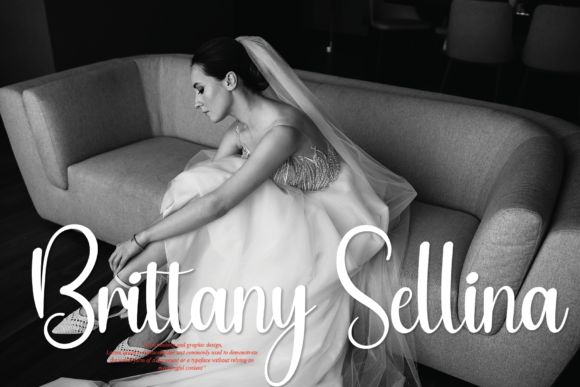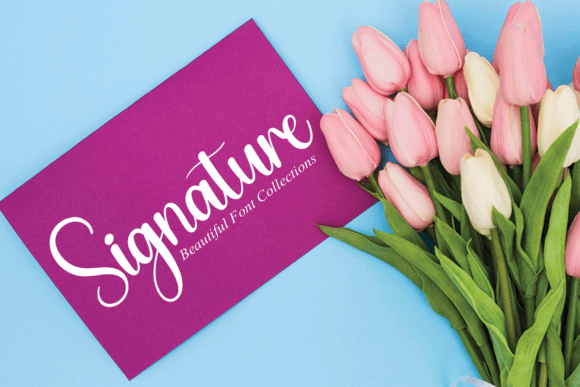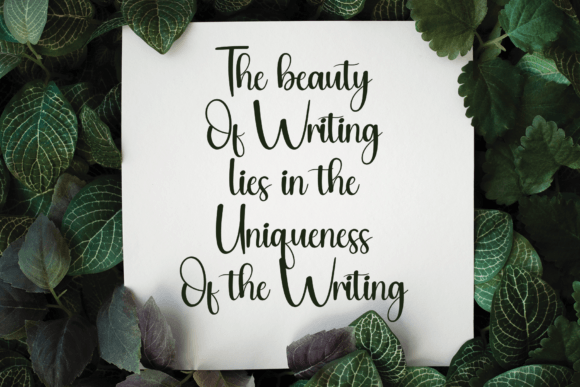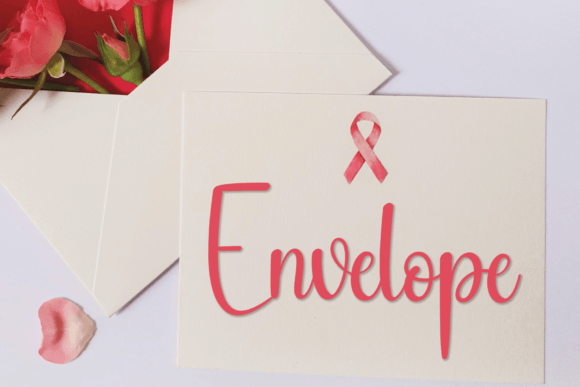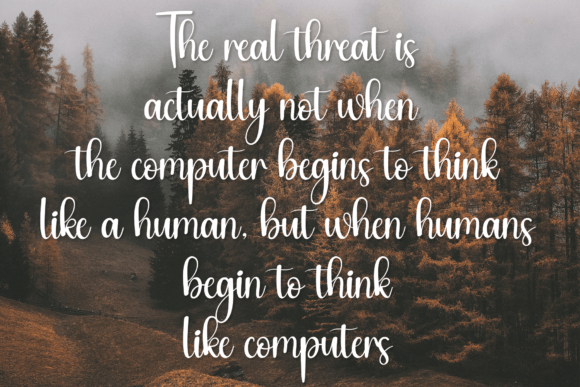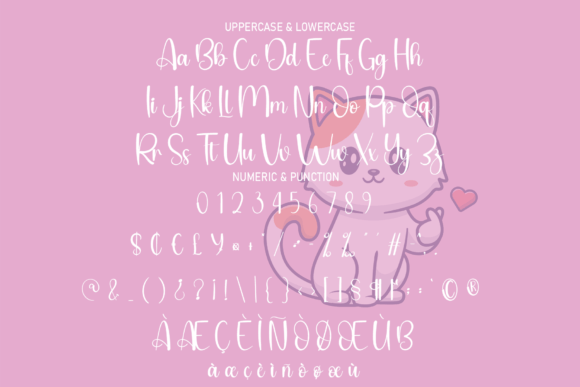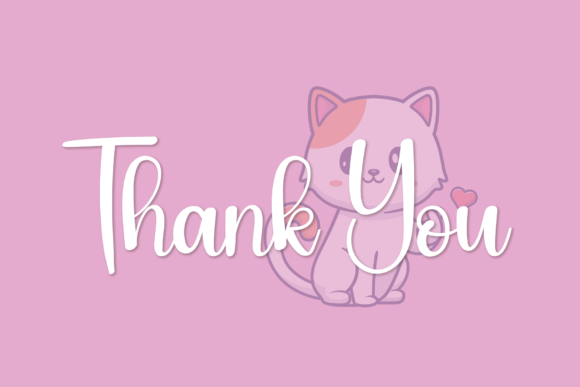
Pokemon Font
A Flowing and Elegant Handwritten Script
Pokemon is a beautiful handwritten font designed to bring elegance and personality to any design project. With graceful curves and smooth lines, it creates a timeless look that feels refined and approachable. Whether you’re crafting logos, wedding invitations, or social media graphics, Pokemon ensures your work stands out with style.
Its balanced shapes and clean flow make it a perfect choice for both casual and formal designs.
Pokemon is a versatile font that adapts to a wide range of uses. It’s perfect for wedding invitations, save-the-dates, and thank you cards. The elegant strokes give any event a warm, romantic feel that your guests will remember.
For branding, Pokemon works beautifully on logos, business cards, and packaging. The smooth, flowing script adds a touch of sophistication and helps your brand look polished and professional.
Use this font for quotes, greeting cards, and personal projects. Its handwritten style adds authenticity and charm to every message.
On social media, Pokemon helps your content look cohesive and stylish. Whether you’re sharing announcements or promotions, this font makes your posts stand out in any feed.
Despite its flowing design, Pokemon remains clear and legible in any size. The balanced spacing between letters keeps your text clean and easy to read, even in longer sentences.
For a modern, organized look, pair Pokemon with a minimalist sans-serif font. Use it for titles and main details, and the sans-serif for supporting text. This creates a polished layout that feels fresh and elegant.
To showcase Pokemon’s graceful style, use soft colors and clean backgrounds. Light shades like ivory, blush, and pale gray allow the font’s details to shine without distraction.
When designing invitations or stationery, consider adding subtle illustrations or delicate borders. These small touches enhance the handwritten look while keeping the design balanced.
On social media, embrace white space and simple layouts so your text remains the focal point.
Think about the mood you want to create. Pokemon is perfect for designs that should feel timeless, romantic, and sophisticated.
Pokemon isn’t just another handwritten font—it’s a creative asset that elevates any project with its flowing, elegant lines. From professional branding to personal keepsakes, this font adapts seamlessly to your ideas and makes your designs feel special.
Adding Pokemon to your font library ensures you always have a stylish, versatile option ready for any occasion. Whether you’re crafting logos, invitations, or social media graphics, this font brings a touch of timeless beauty to every project.